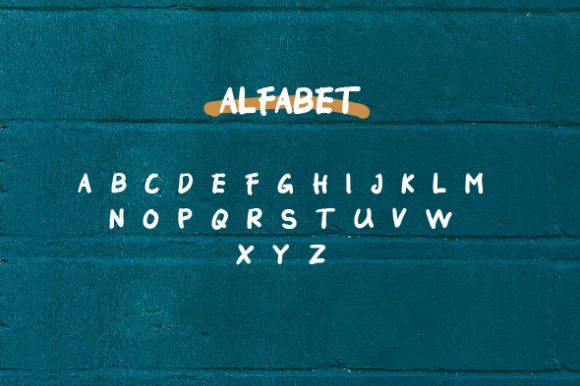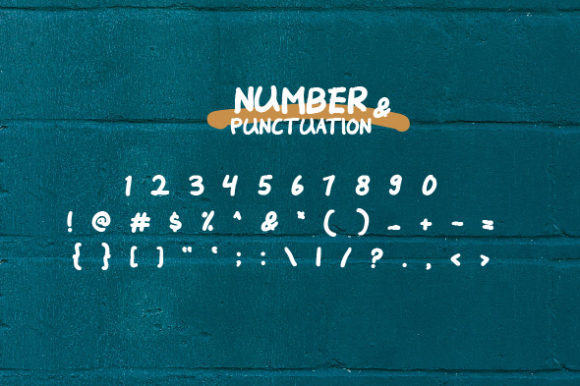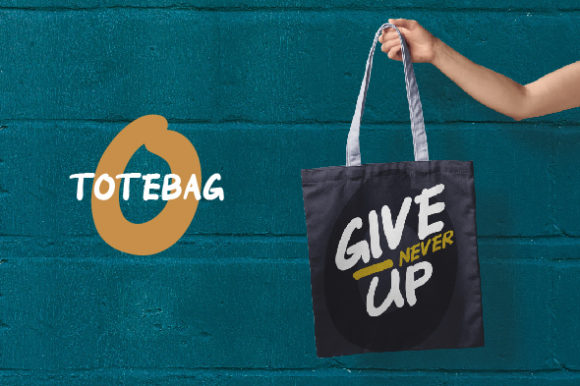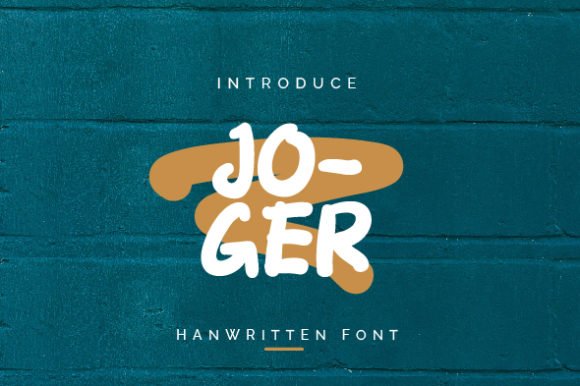
Introduction to Joger Font
Joger is a fun, thick lettered and friendly display font.
No matter the topic, this font will be an incredibly asset to your fonts’ library, as it has the potential to elevate any creation .
Key Features of Joger Font
Why Choose Joger Font?
Joger Font offers exceptional quality and versatility, making it a valuable addition to your design toolkit. Whether you’re creating for personal projects or commercial use, Joger Font delivers professional results.